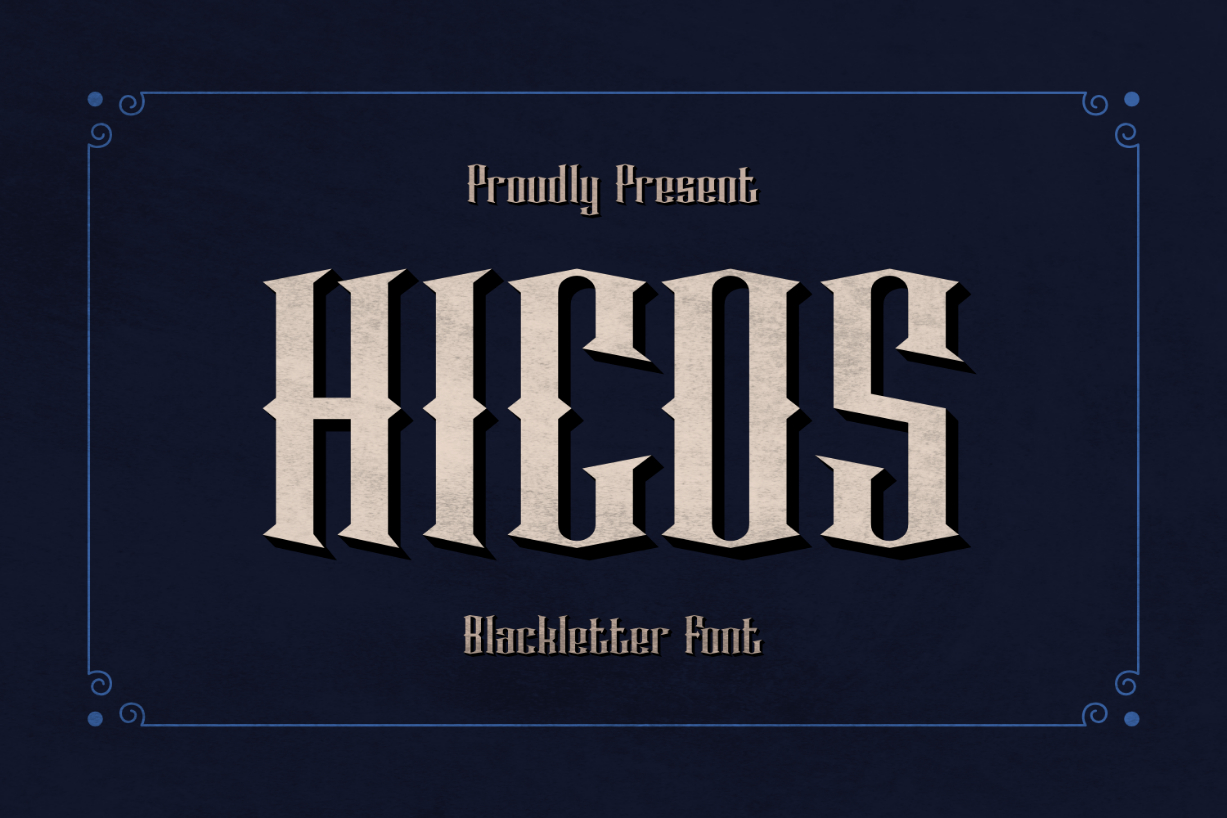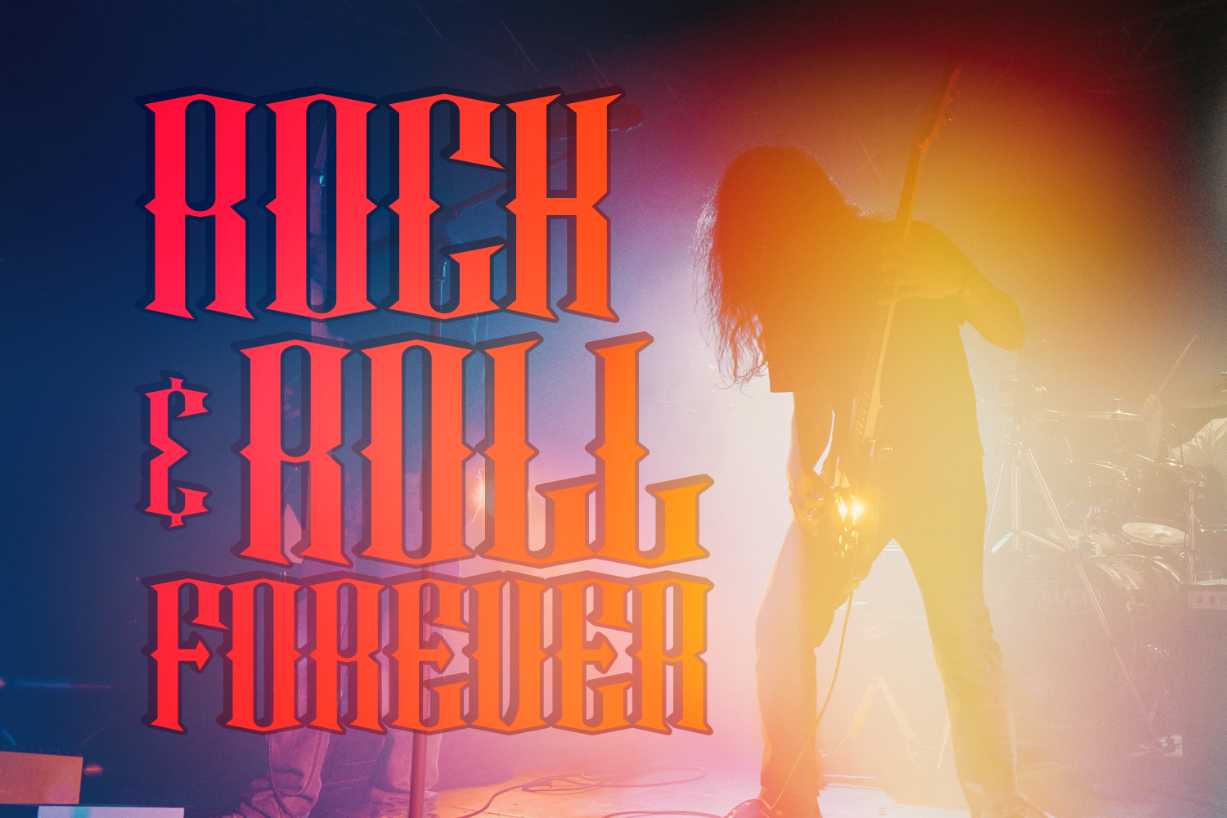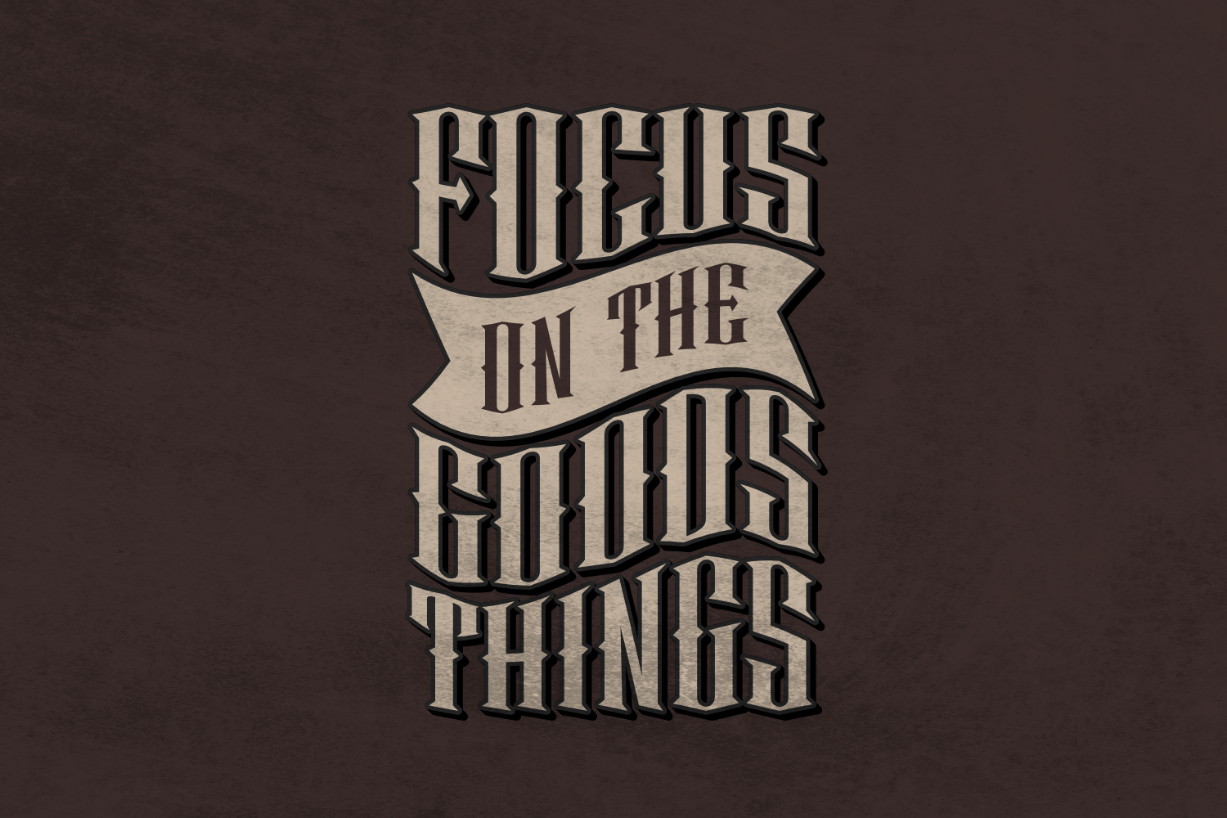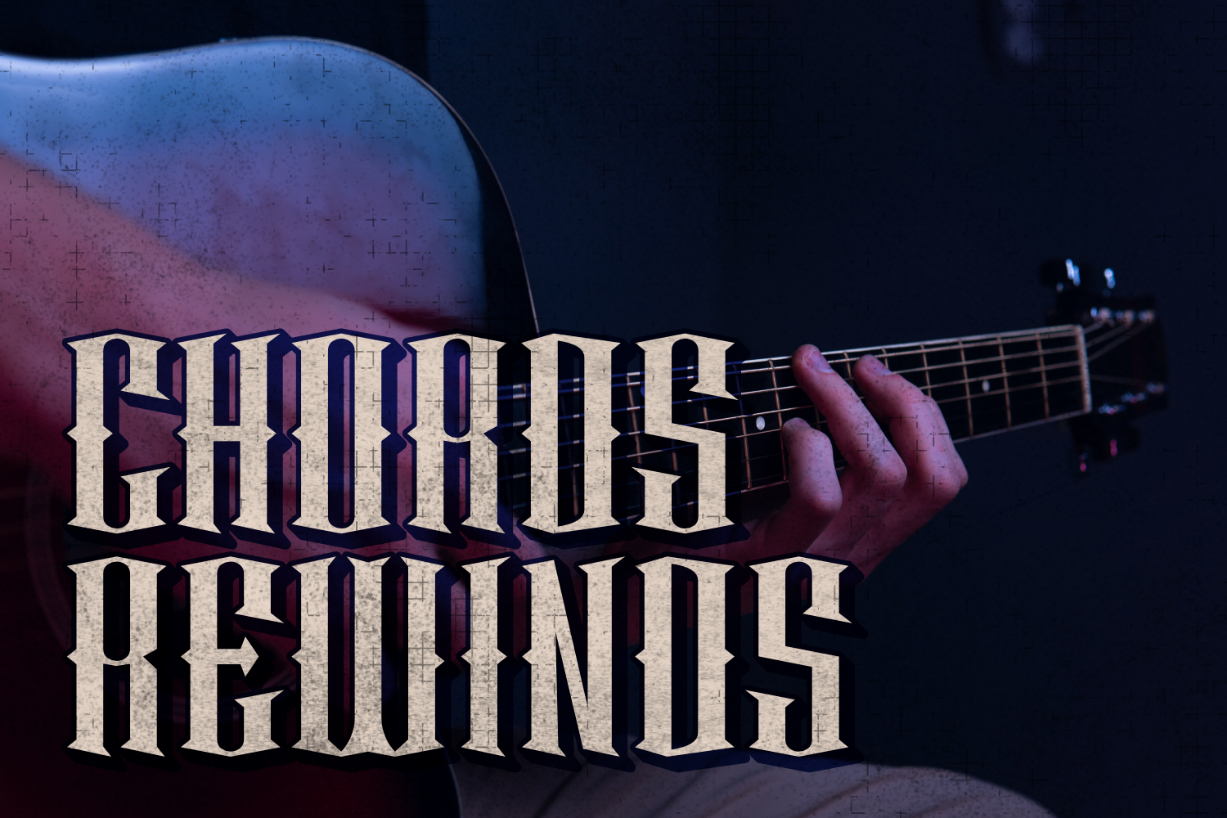
Hicos Font
About Hicos Font
Hicos is a classic-style blackletter font. With its bold and vintage look, this tall-bodied set of characters is the perfect choice for projects that require a grunge and gothic aesthetic. Use it to create impressive typography for posters, album covers, branding projects, t-shirts, cards, and more.